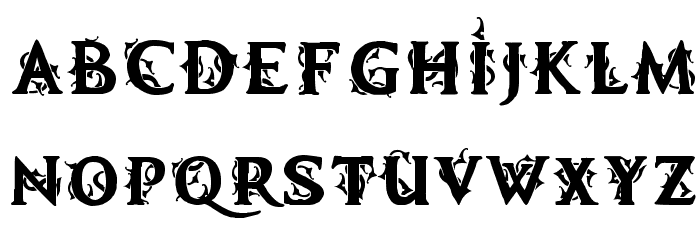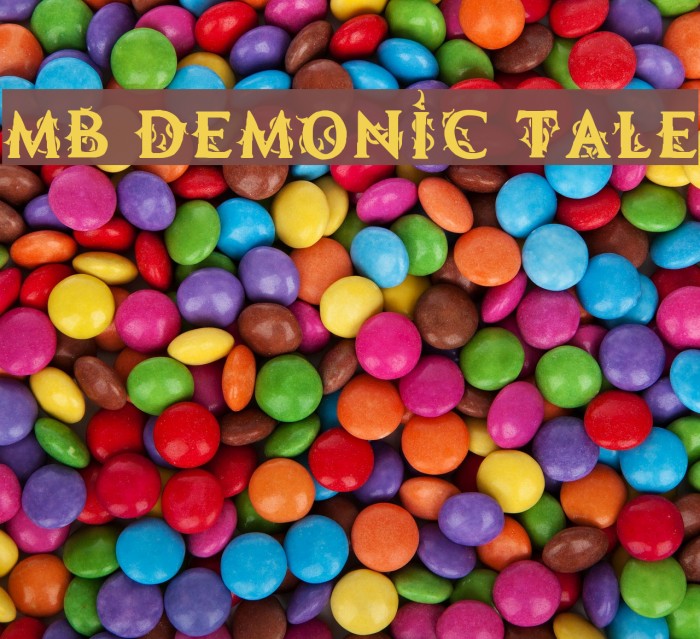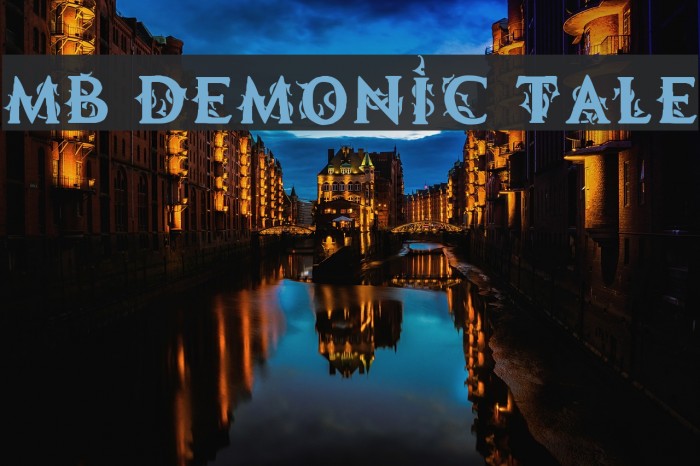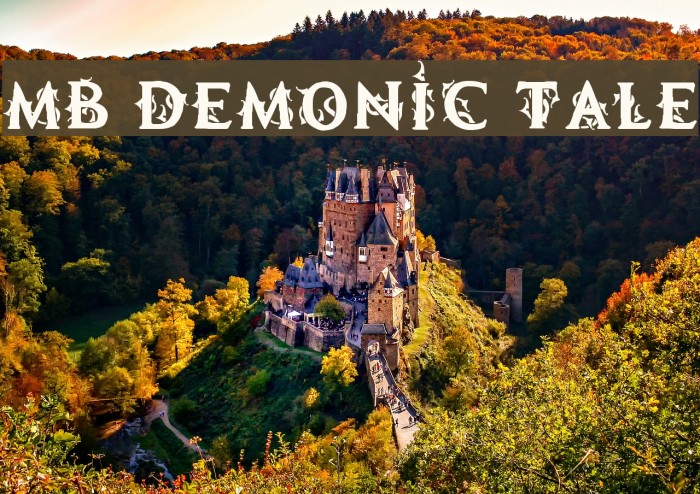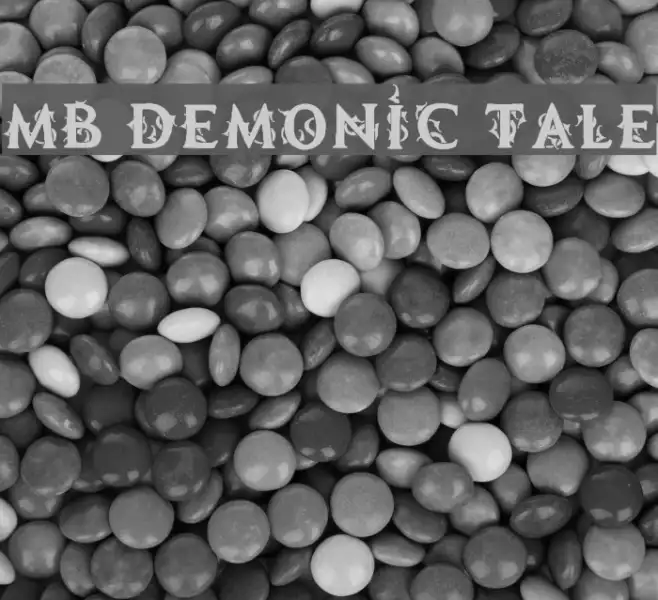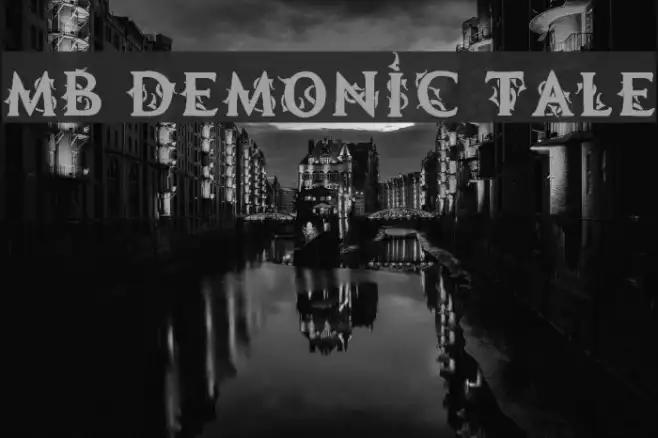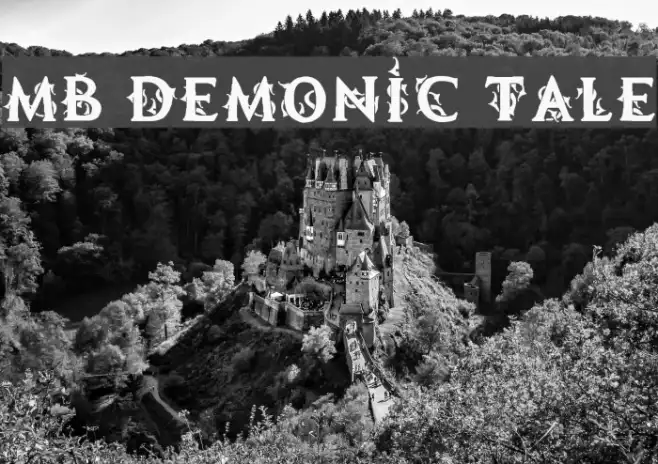
MB Demonic Tale Font
This font features a unique and intricate design with gothic and demonic influences. Each character is adorned with sharp, thorn-like embellishments that give it a dark and mysterious appearance. The bold strokes and elaborate detailing create a sense of drama and intensity, making it ideal for projects that require a strong visual impact. The uppercase and lowercase letters maintain a consistent style, while the numbers and special characters are equally ornate, ensuring a cohesive look across all text. This font is perfect for creating eye-catching titles, posters, and themed graphics that demand attention.
A gothic-inspired font with thorn-like embellishments and bold, dramatic strokes.
- Proposed Projects: Ideal for horror-themed posters, gothic event invitations, fantasy book covers, and dramatic branding.
- Overall Style: Gothic, Dramatic, Decorative
- Use Case: Headlines, Posters, Themed Graphics